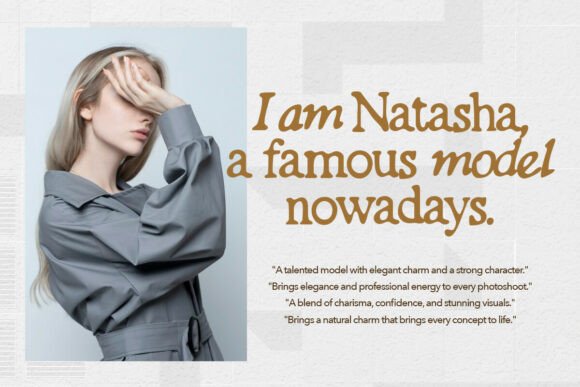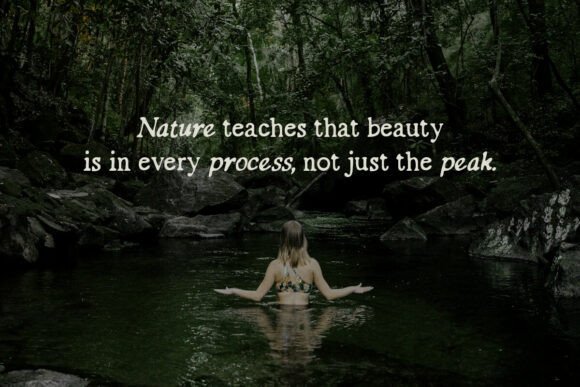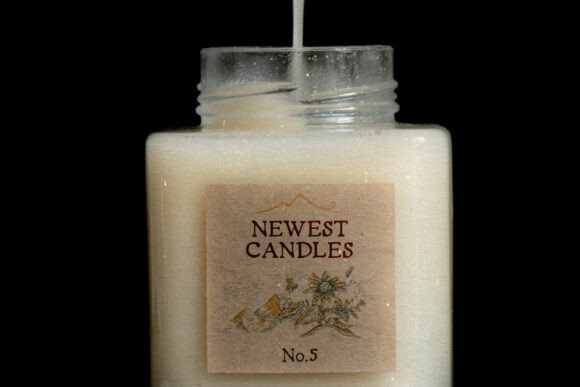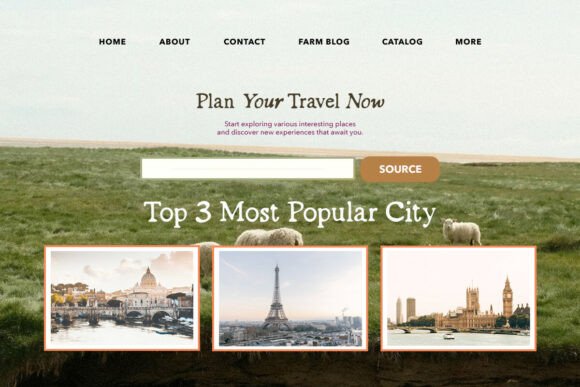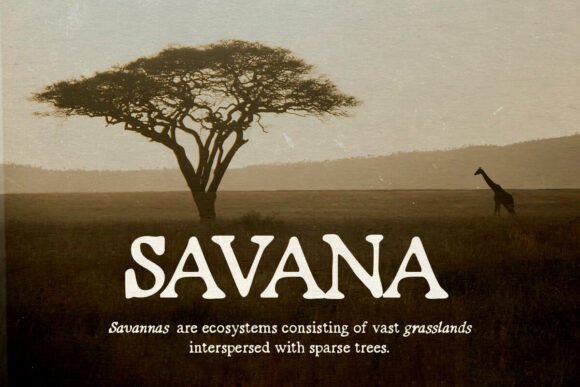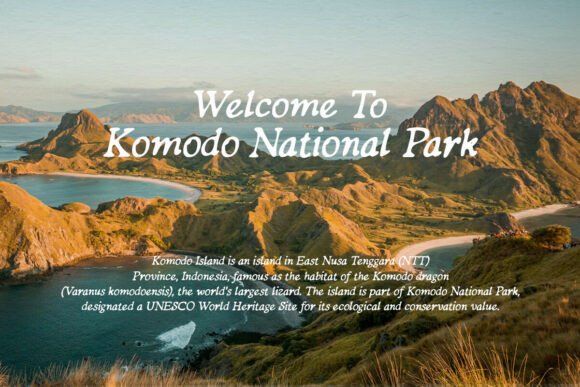
Introduction to Organic Grain Font
Have you ever stared at a blank page, trying to find the perfect font to match your creative vision? I know I have. As designers, we’re constantly on the lookout for that special something that sets our projects apart. And sometimes, it’s the subtle details that make all the difference. That’s where the Organic Grain Font comes in – a hand-lettered serif font family that’s as unique as it is versatile.
With its natural, blurred look and high-quality design, the Organic Grain Font is a valuable resource for any creative project. Whether you’re designing a logo, a wedding invitation, or a quote, this font is sure to add a touch of elegance and sophistication. Plus, with both regular and italic versions available, you’ll have endless possibilities for customization.
Key Features of Organic Grain Font
- Unique, hand-drawn design for a natural, earthy feel, perfect for creative projects.
- High-quality font with transparent background, ideal for use on various design resources.
- Large character set with over 200 glyphs, covering a wide range of languages and characters.
- Designed to be scalable, allowing for use in various font sizes and styles.
Honest Review: Organic Grain Font
I recently stumbled upon the Organic Grain Font, and I must say, it’s been a game-changer for my design projects. This free download has been a valuable addition to my design resource library.
- The font’s organic feel adds a unique touch to my creative project designs, giving them a more natural and earthy vibe.
- The high quality of the font ensures that it looks great on a transparent background, making it perfect for my designs that require a subtle texture.
- The font’s versatility allows me to use it for a wide range of design projects, from logos to typography-based art.
- The font’s design can be quite busy, which may not be suitable for all design projects.
Overall, I’m impressed with the Organic Grain Font. It’s a high-quality design resource that has added a new level of creativity to my design projects. While it may have some limitations, I believe it’s a valuable addition to any designer’s library.
The Organic Grain Font is a unique and versatile design resource that can elevate your creative project with its natural and earthy feel. This high-quality font is available for free download, making it an excellent addition to any design arsenal.
For optimal results, use the Organic Grain Font in combination with natural and earthy design elements, such as leaf patterns and wood textures. Experiment with different font sizes and colors to find the perfect balance for your design.
The Organic Grain Font is ideal for creative projects that require a natural and earthy feel, such as:
- Food and beverage branding
- Outdoor and nature-inspired designs